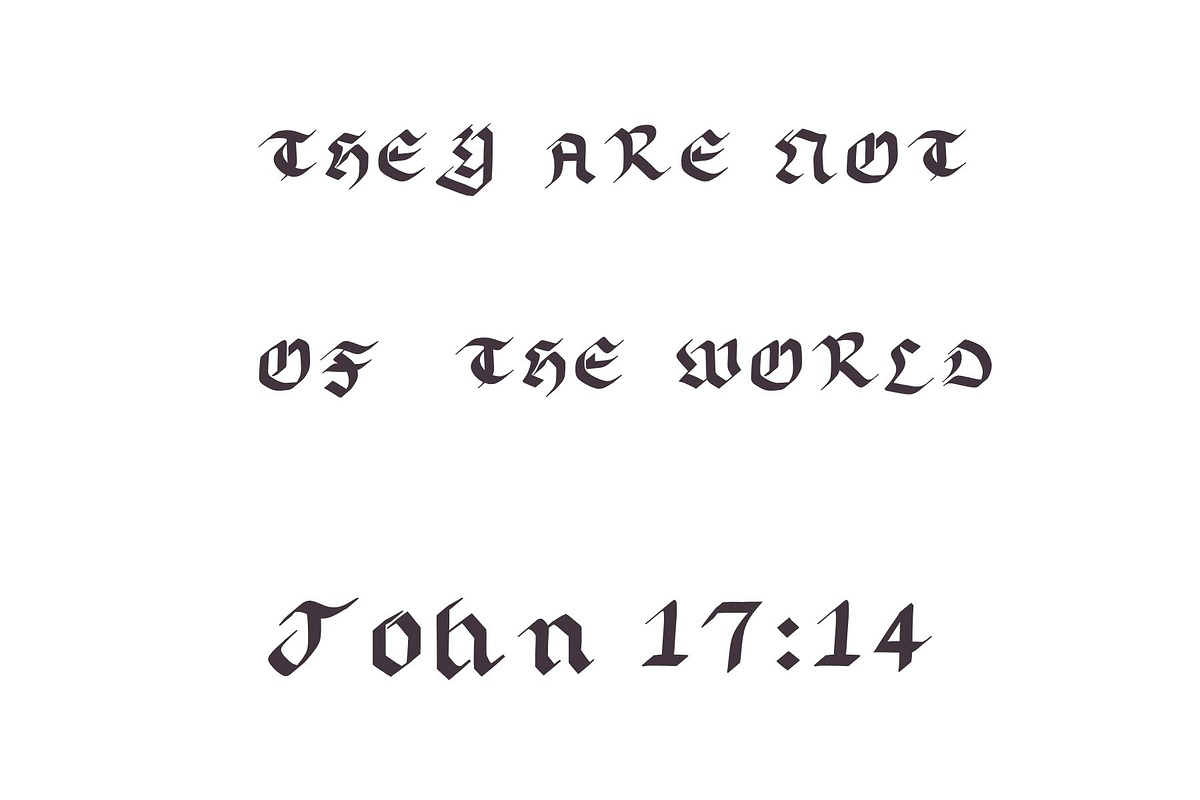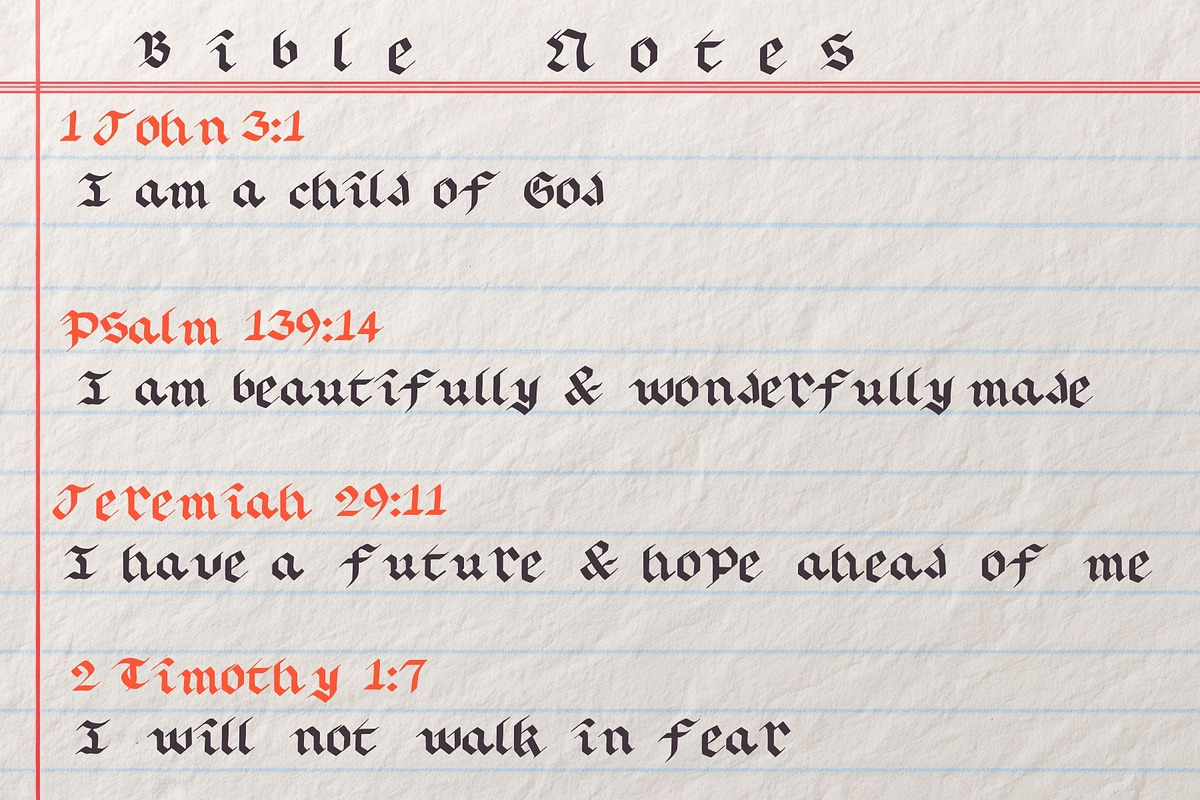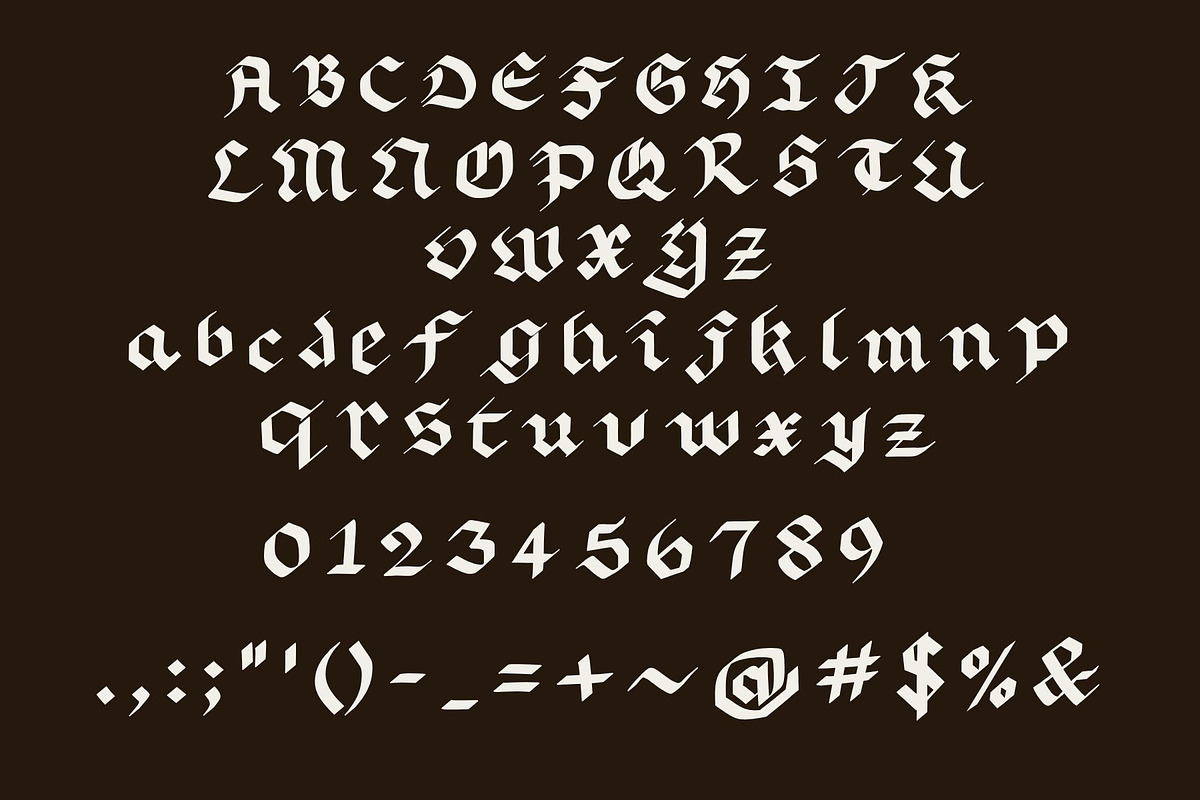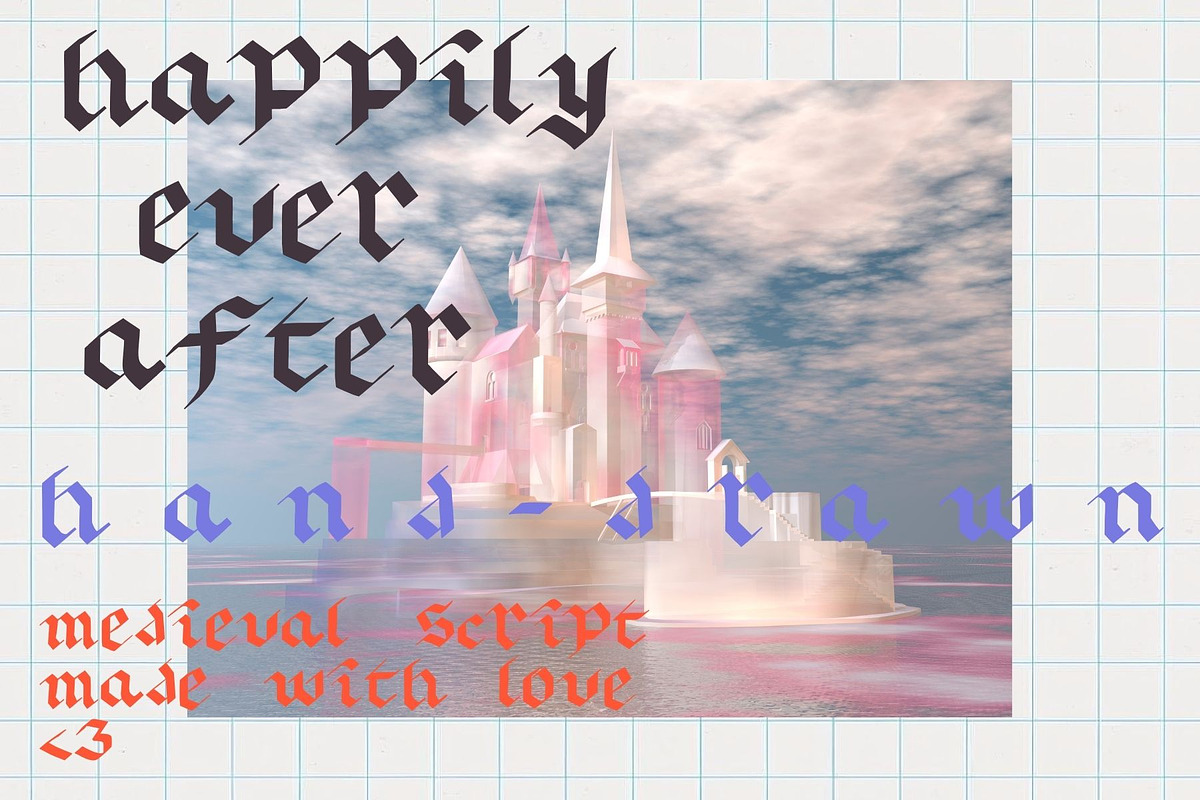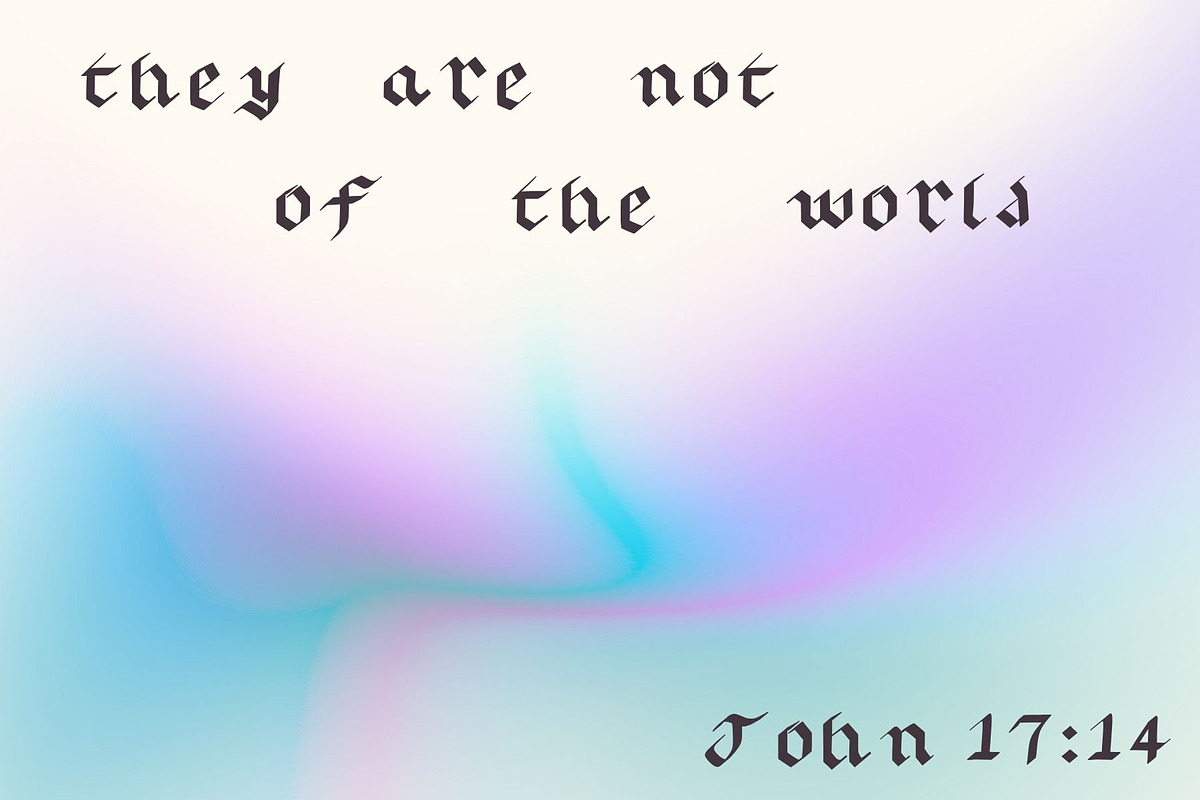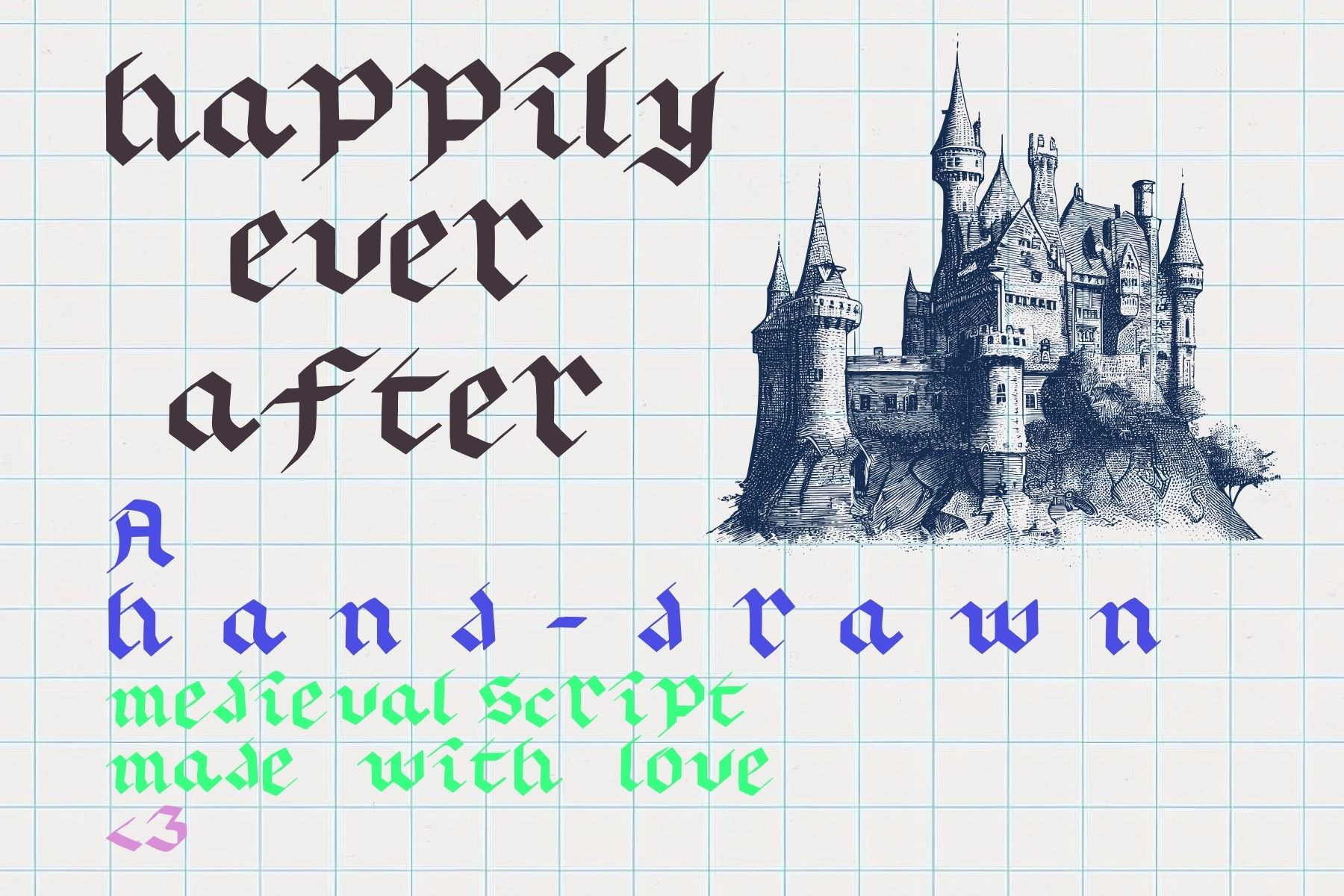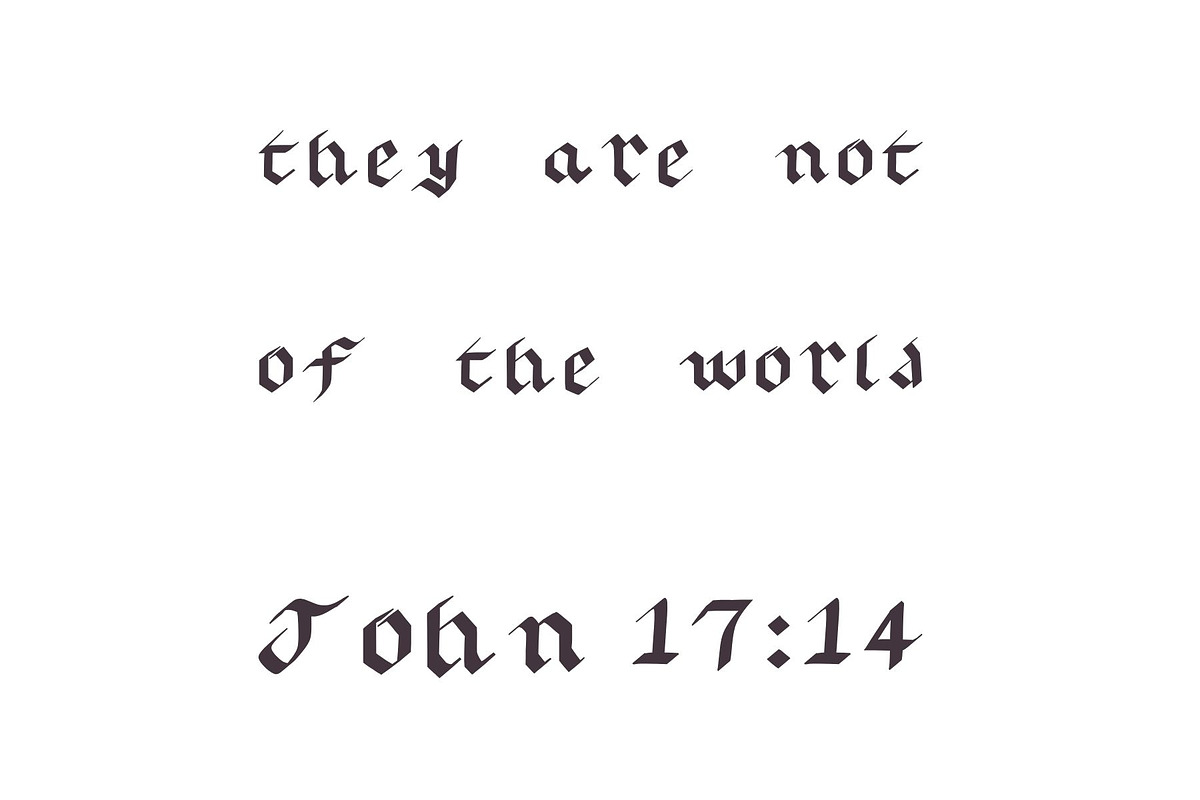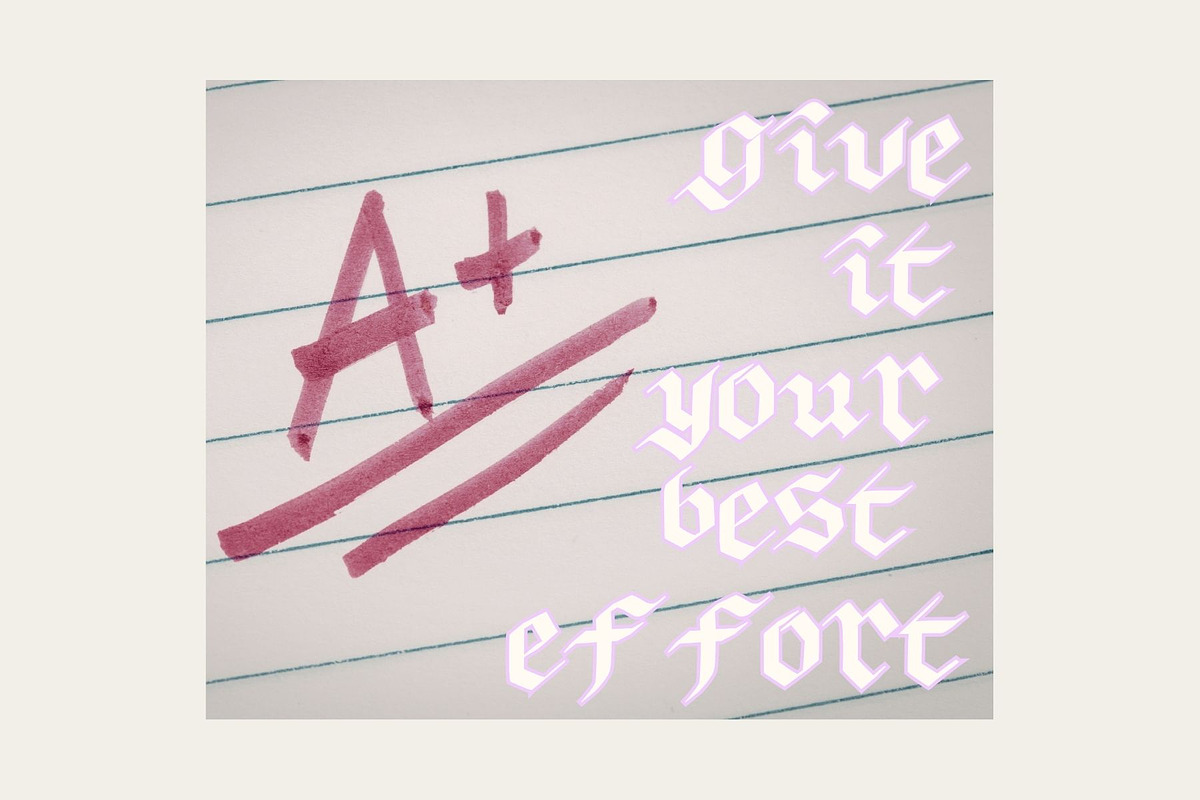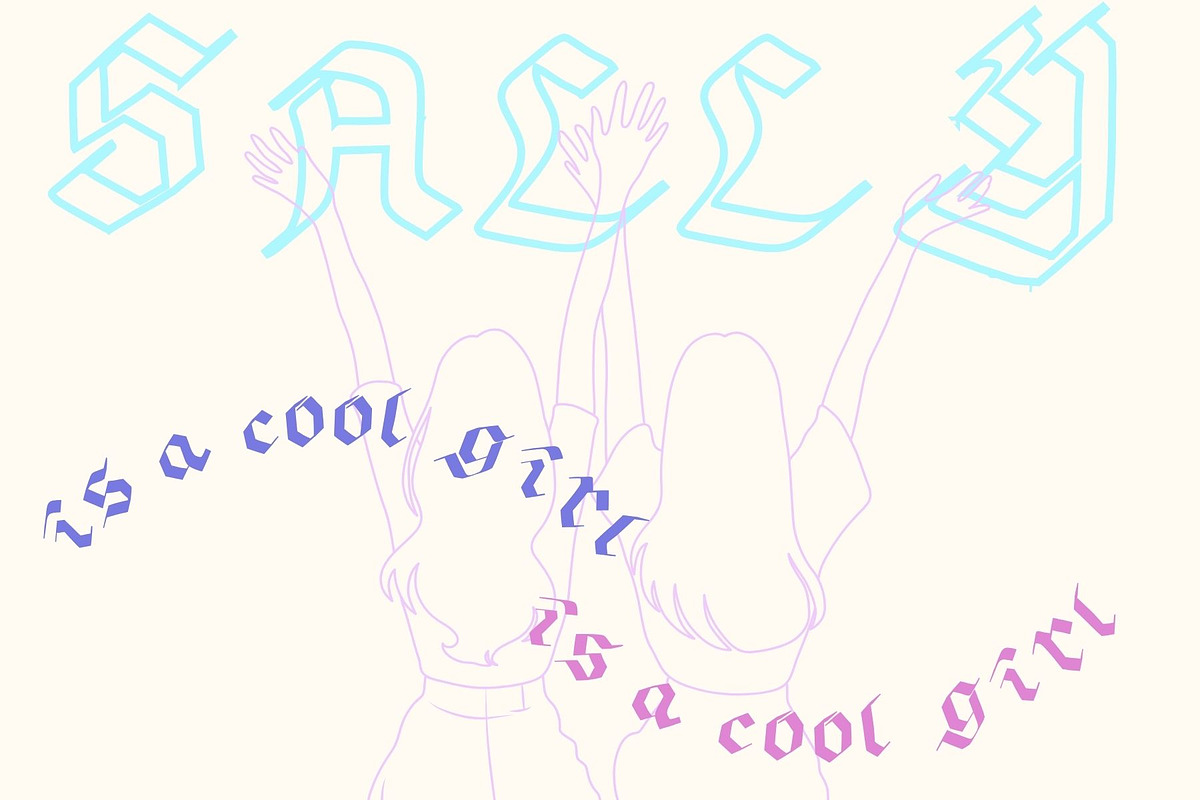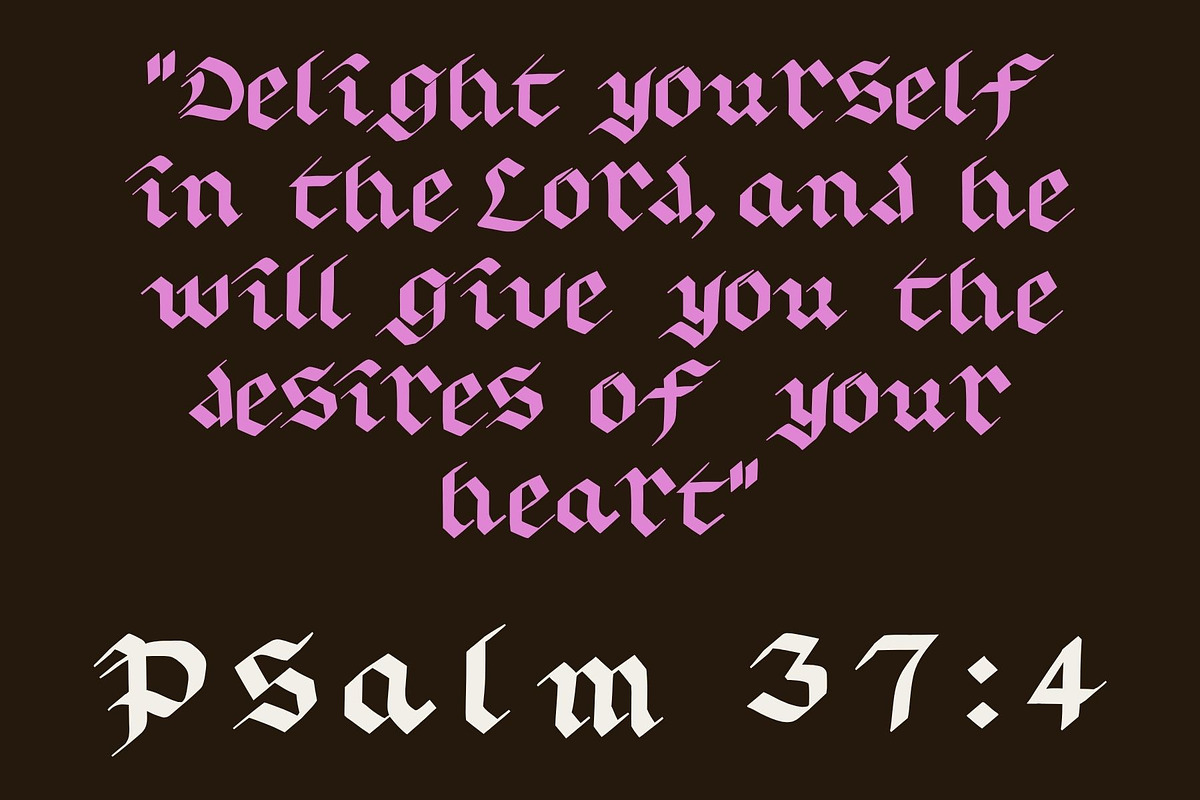
Happily Ever After Medieval Font
Happily Ever After , a hand-drawn medieval old world font.
Happily Ever After is an old-world font infused with a modern twist, beautifully capturing a classic medieval style while maintaining a fresh aesthetic. Whether you're designing a 'baddie' t-shirt, merchandise for a trendy band, or an eye-catching invitation, this font never goes out of style. Its 'old English' charm embodies an effortless and timeless cool factor, ensuring it stands out in any project. This unique hand-drawn font is sure to captivate your audience and elevate your designs. Enjoy the creative process!